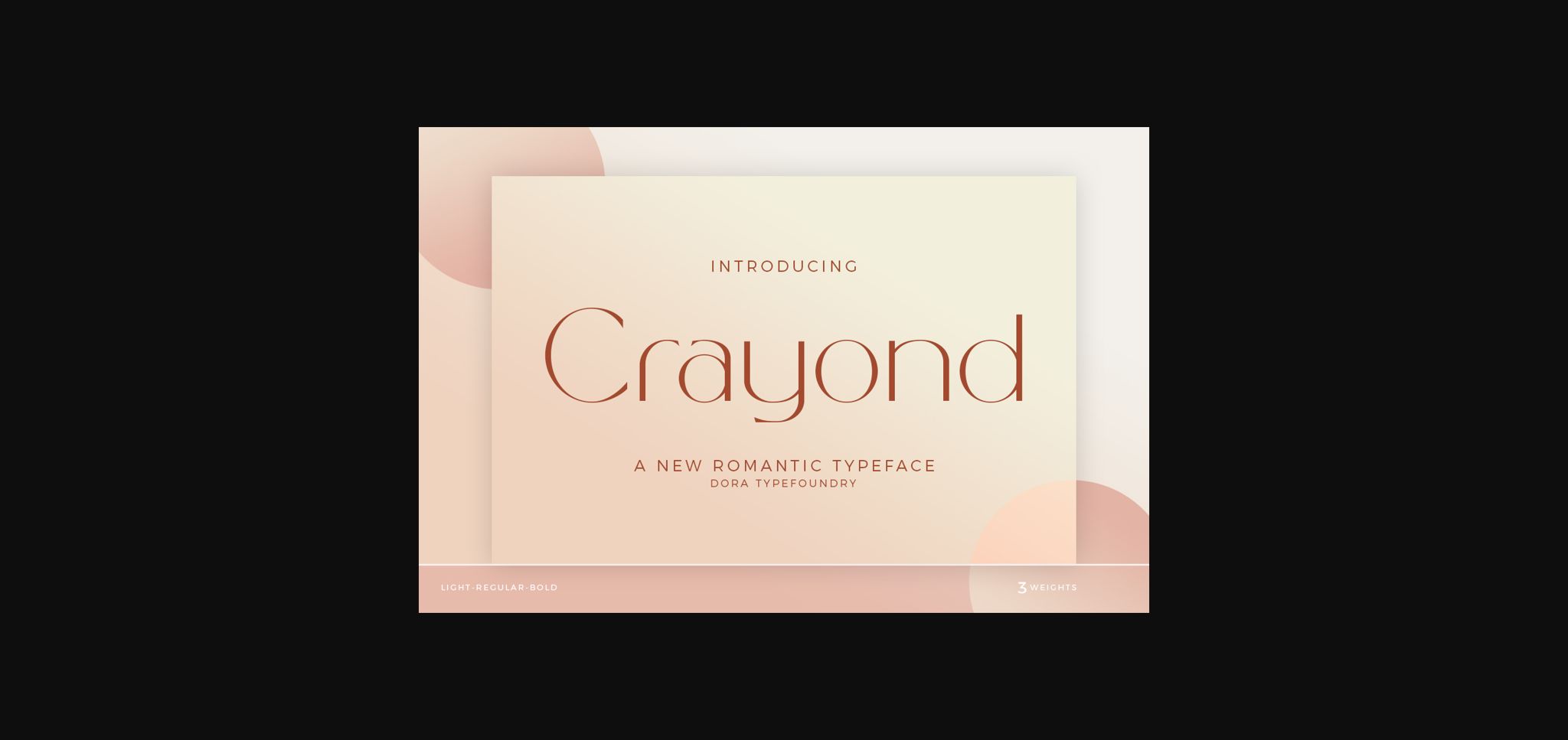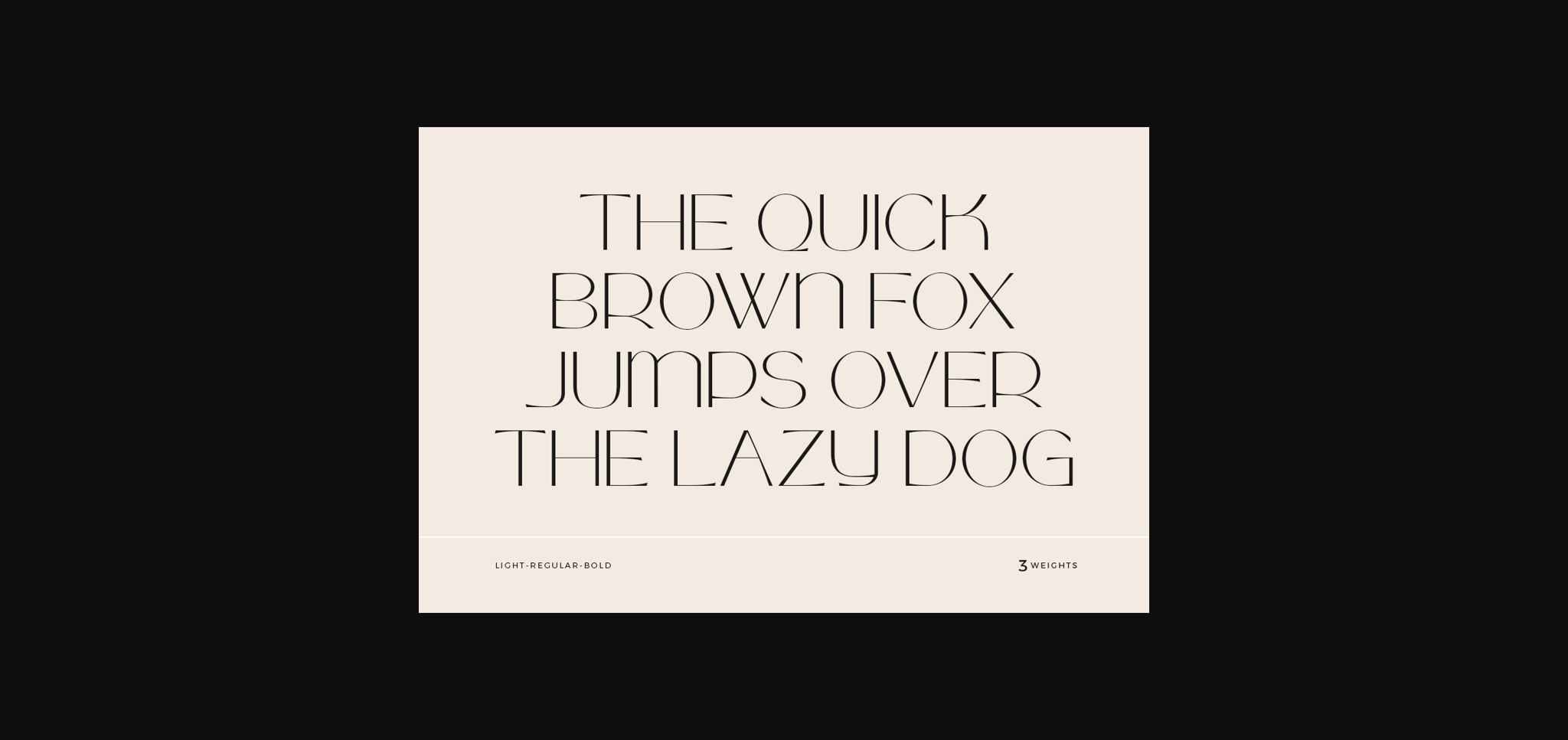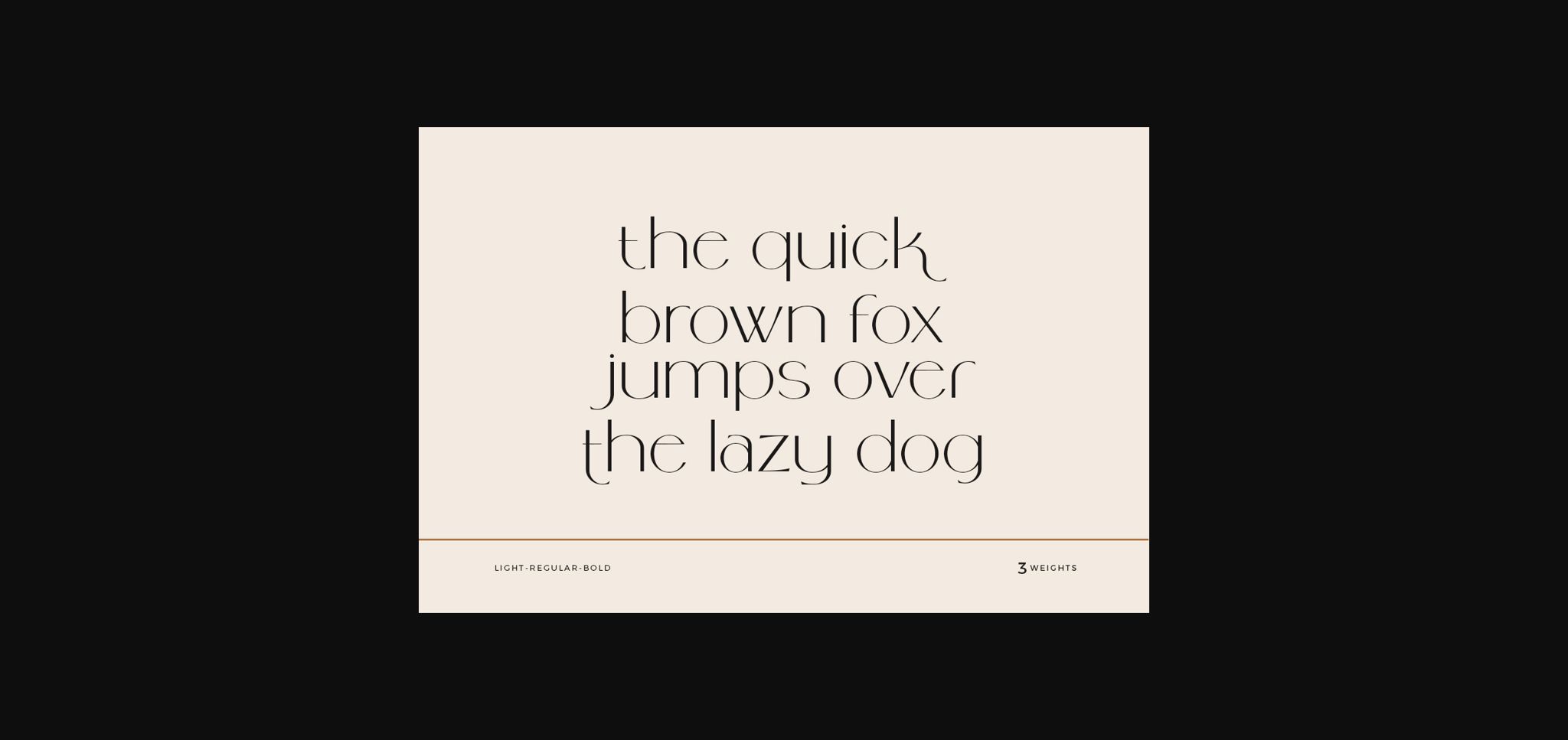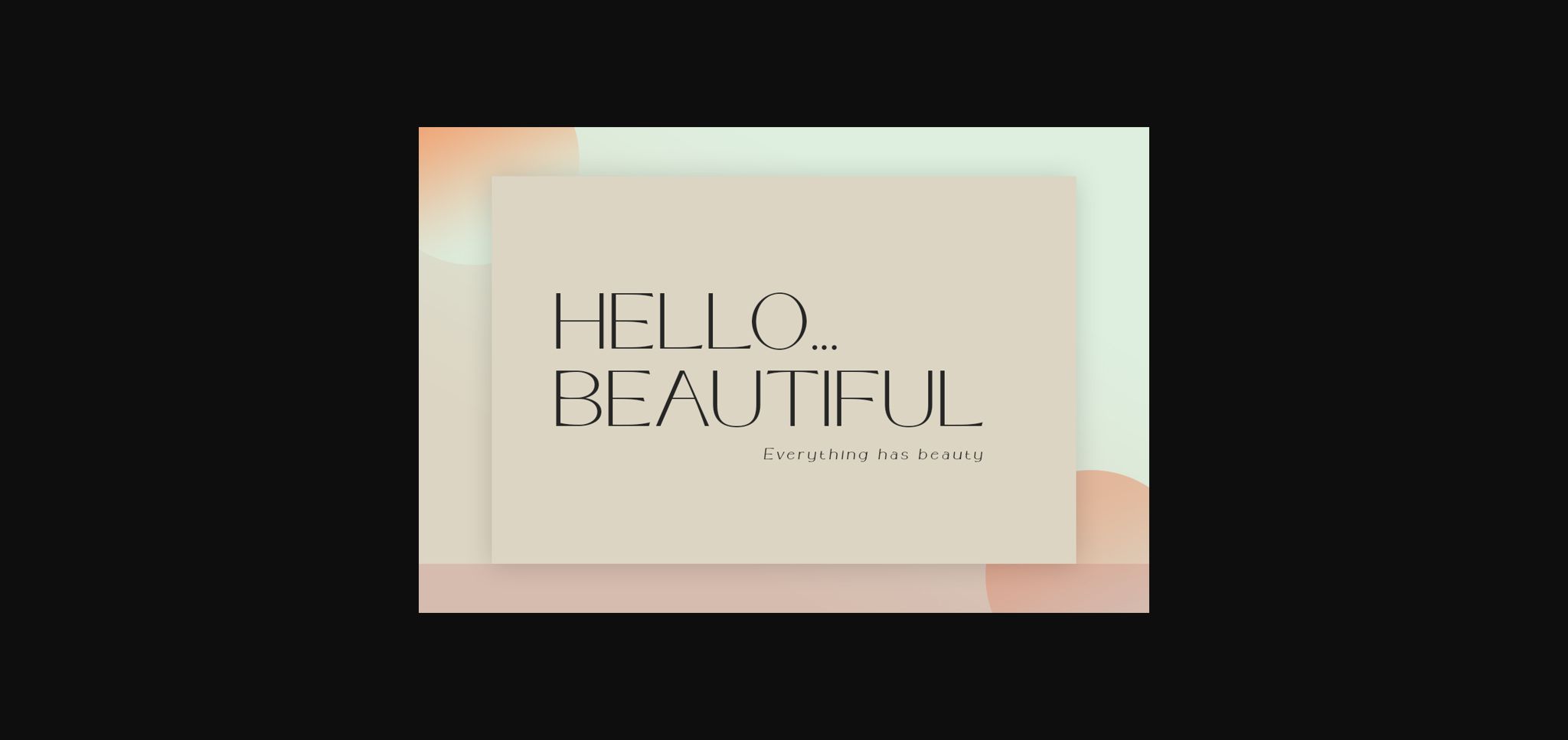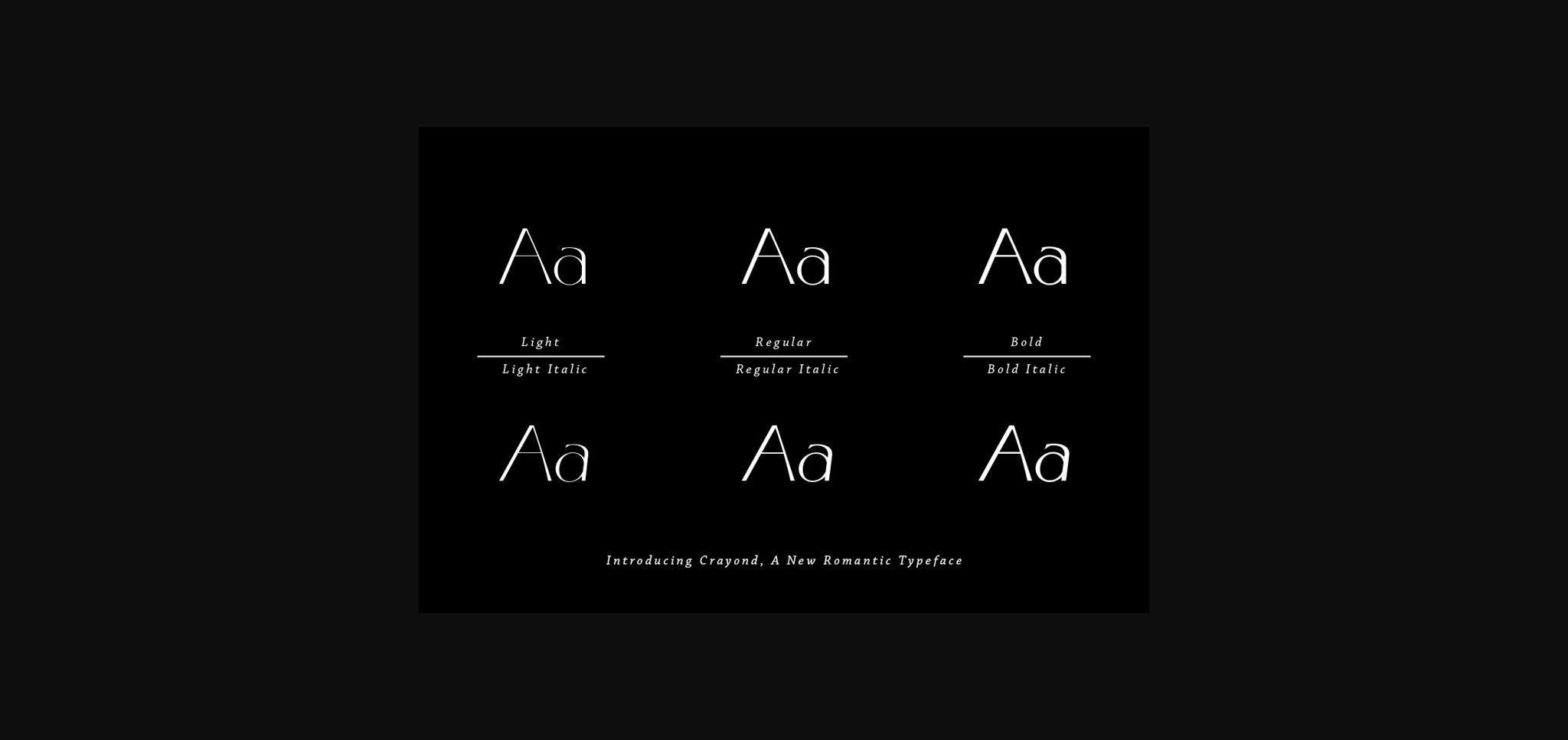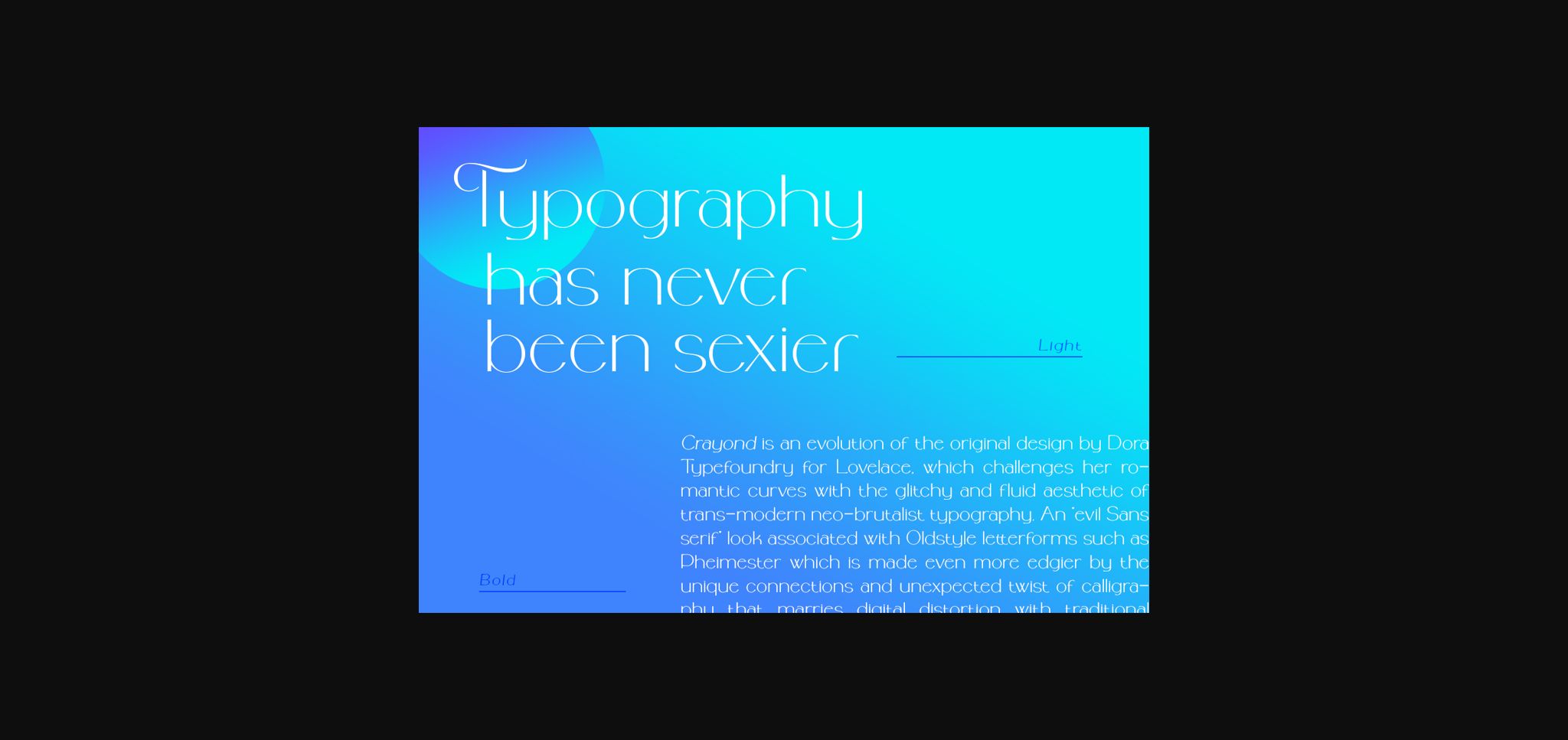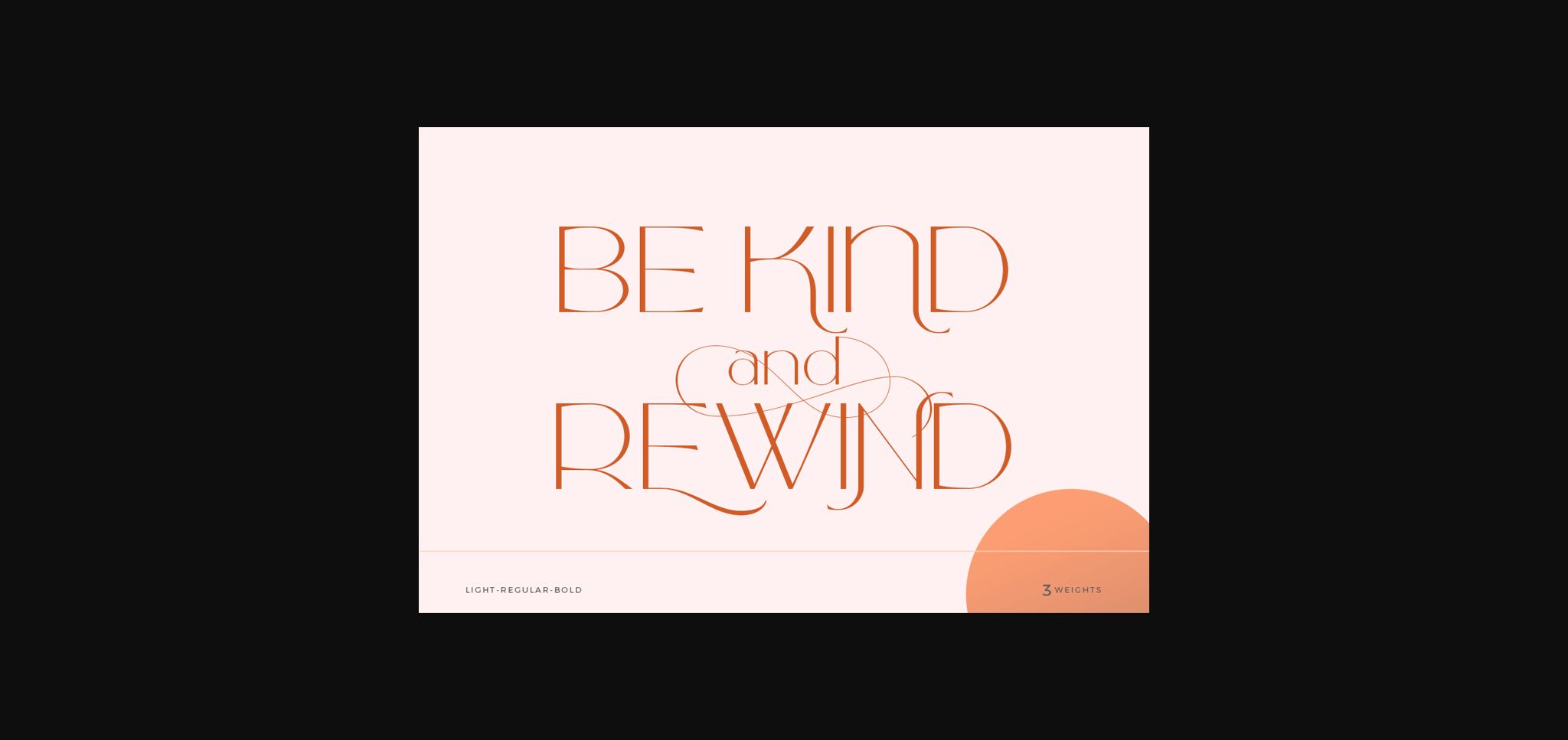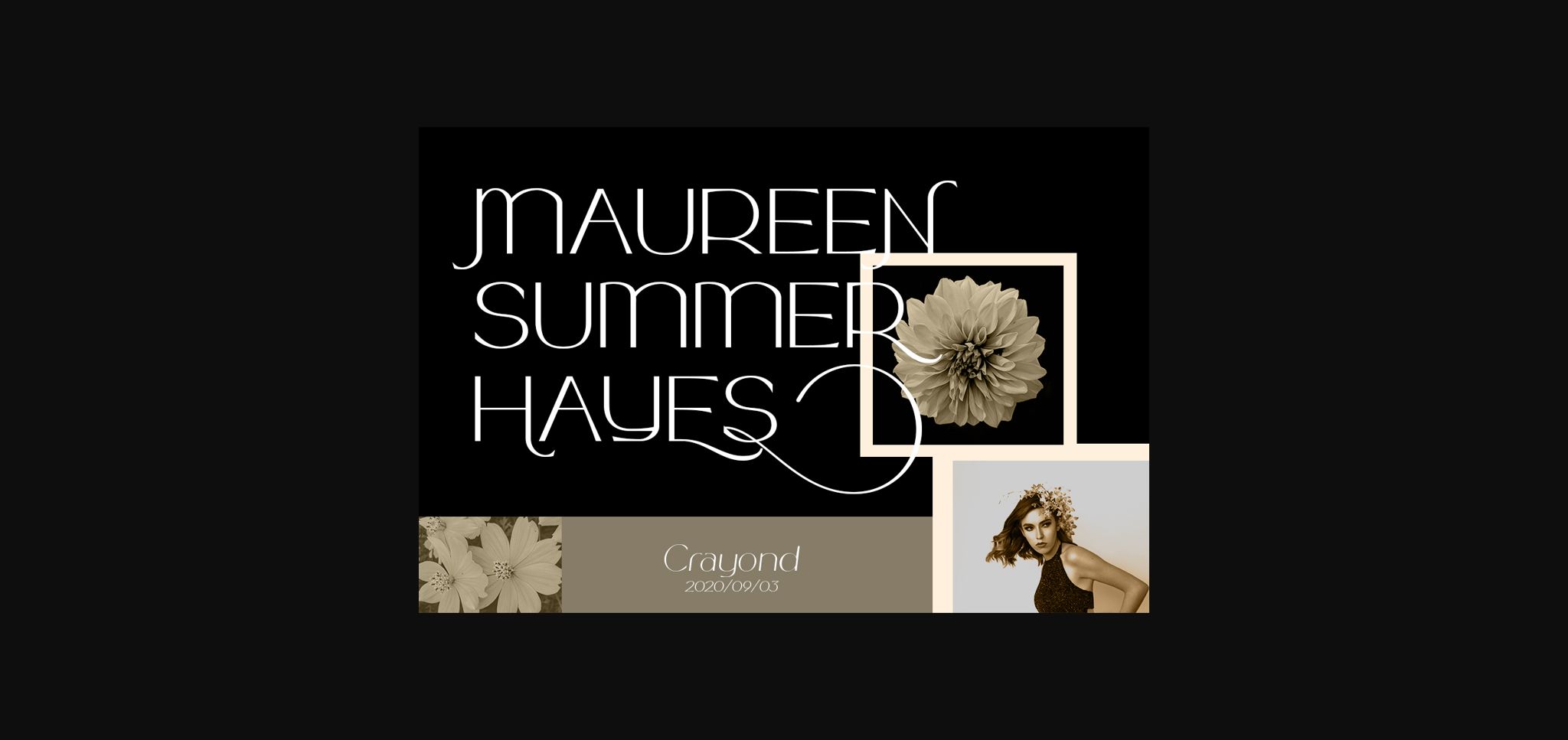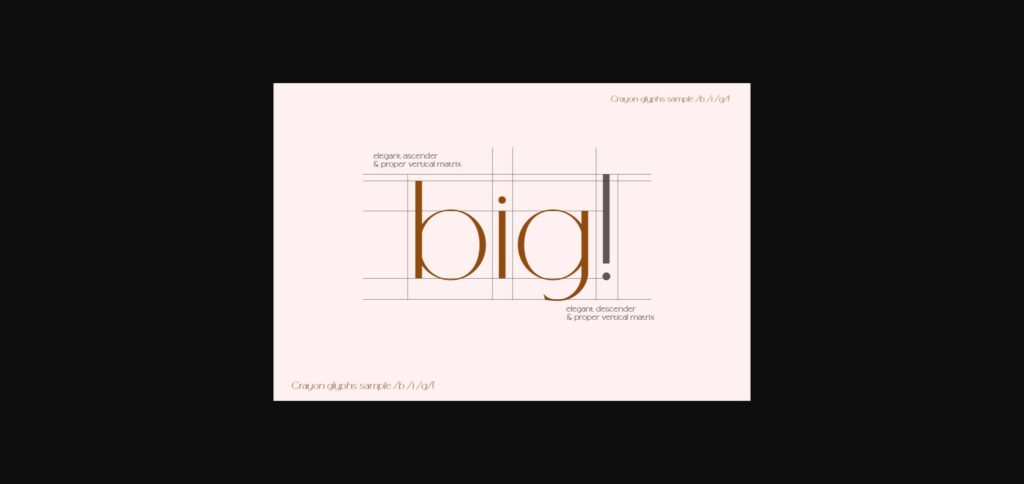
HomeSans Serif FontsCrayond Font Sans Serif Fonts Crayond Font FacebookXPinterestWhatsApp 1 of 11 ... Crayond Font Poster 2... Crayond Font Poster 3... Crayond Font Poster 4... Crayond Font Poster 5... Crayond Font Poster 6... Crayond Font Poster 7... Crayond Font Poster 8... Crayond Font Poster 9... Crayond Font Poster 10... Crayond Font Poster 11... About Crayond Font Crayond is a romantic, delicate and round lettered sans serif font. Fall in love with its unique and elegant style and create lovely designs! DOWNLOAD NOW People also explored Jilly Font Artoone Oriottes Font Home Vintage Font Almond Pudding Font Erika Carleigh Font Montana Pictures Font Black Magic Font Pully and Bear Font Farm Work Font 395 0 TagsCrayondCrayond Font Previous articleJelli FontNext articleNatural Font LEAVE A REPLY Cancel reply Comment: Please enter your comment! Name:* Please enter your name here Email:* You have entered an incorrect email address! Please enter your email address here Website: Save my name, email, and website in this browser for the next time I comment. Personal Use Free Homelands Personal Use Free Read more about this font Ammanda Personal Use Free Read more about this font Trio Personal Use Free Read more about this font Gagalin Personal Use Free Read more about this font BLOG Top 10 Handwritten Fonts That Elevate Your Designs Top 10 Handwritten Fonts That Will Elevate Your Designs Handwritten fonts bring a warm, personal touch to every creative project. Whether you're designing logos, invitations,... Fonts That Capture the Spirit of New York City Exploring Font Trends How to Install and Use Fonts on Windows, macOS, and Web Projects